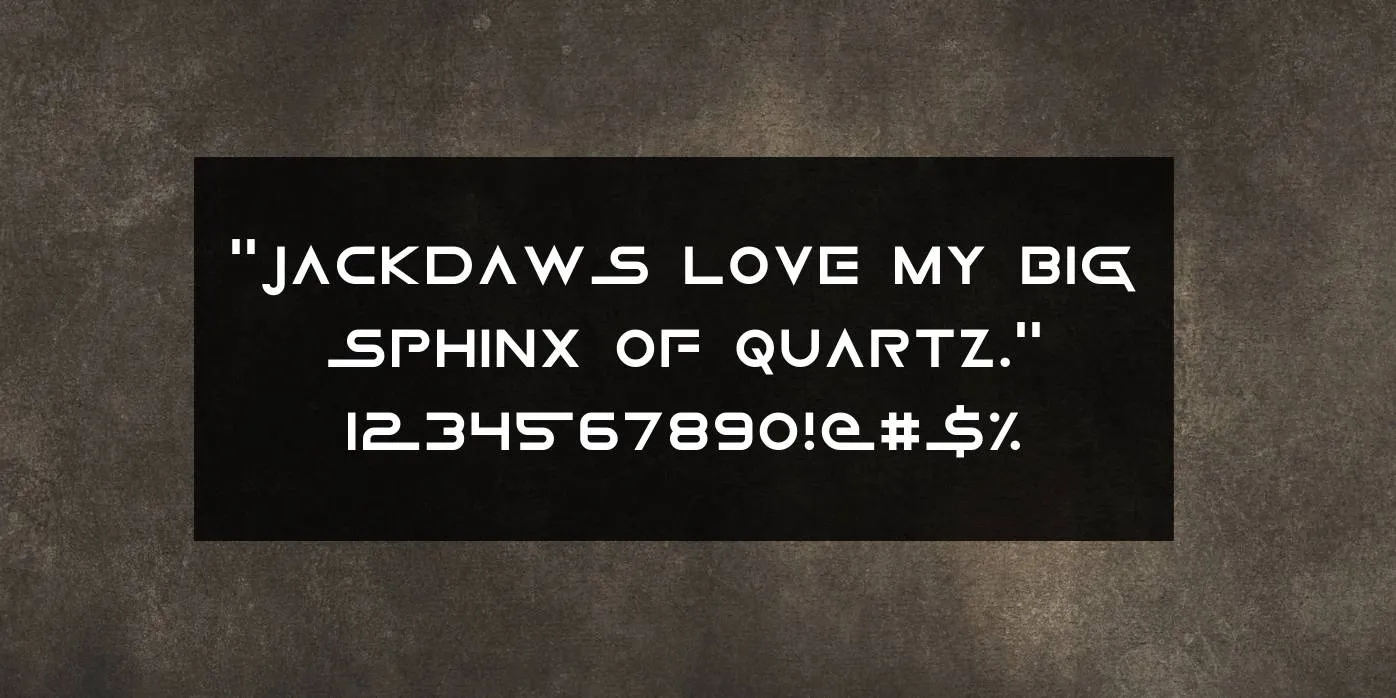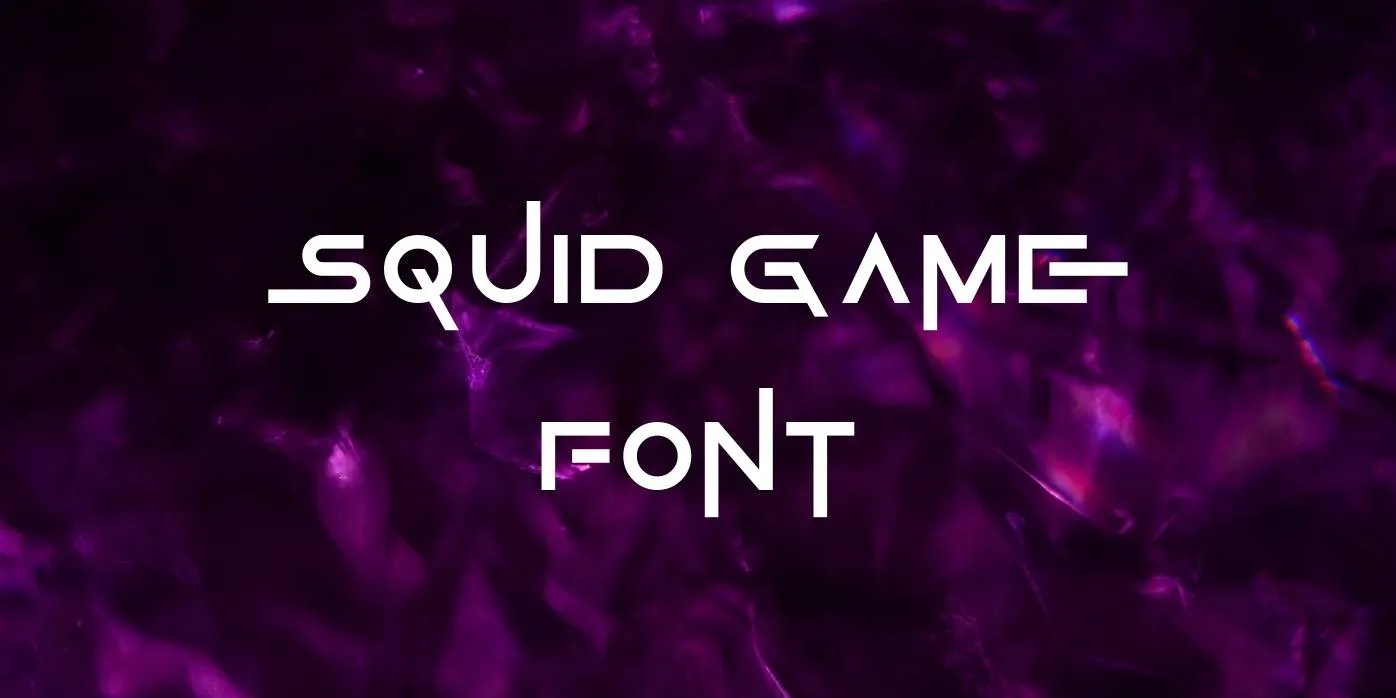
Squid Game Font
Squid Game Font is a fancy font that was designed by Darrell Flood. It is a great way to add some personality to your games. It has neat and clean textures. The characters are fun and bouncy.
It is a great font for making games that look unique. This awesome typeface has unique characters and round corners. The shapes of the letters are very playful. The font is perfect for making 2D games.